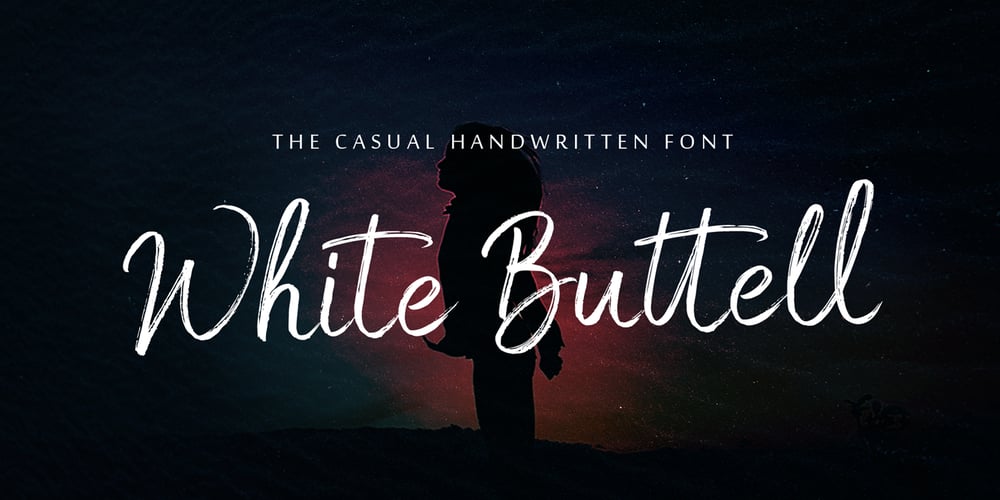
White Buttell
White Buttell font
White Buttell Font Family was designed by Bagas Ardiatma and published by Trustha. White Buttell contains 3 styles and family package options. White Buttell is a handwritten brush script font. It has a natural style of a dry marker which makes it perfect for branding, advertising, poster designs, logos, book covers, magazines, packaging, website headers, and more.